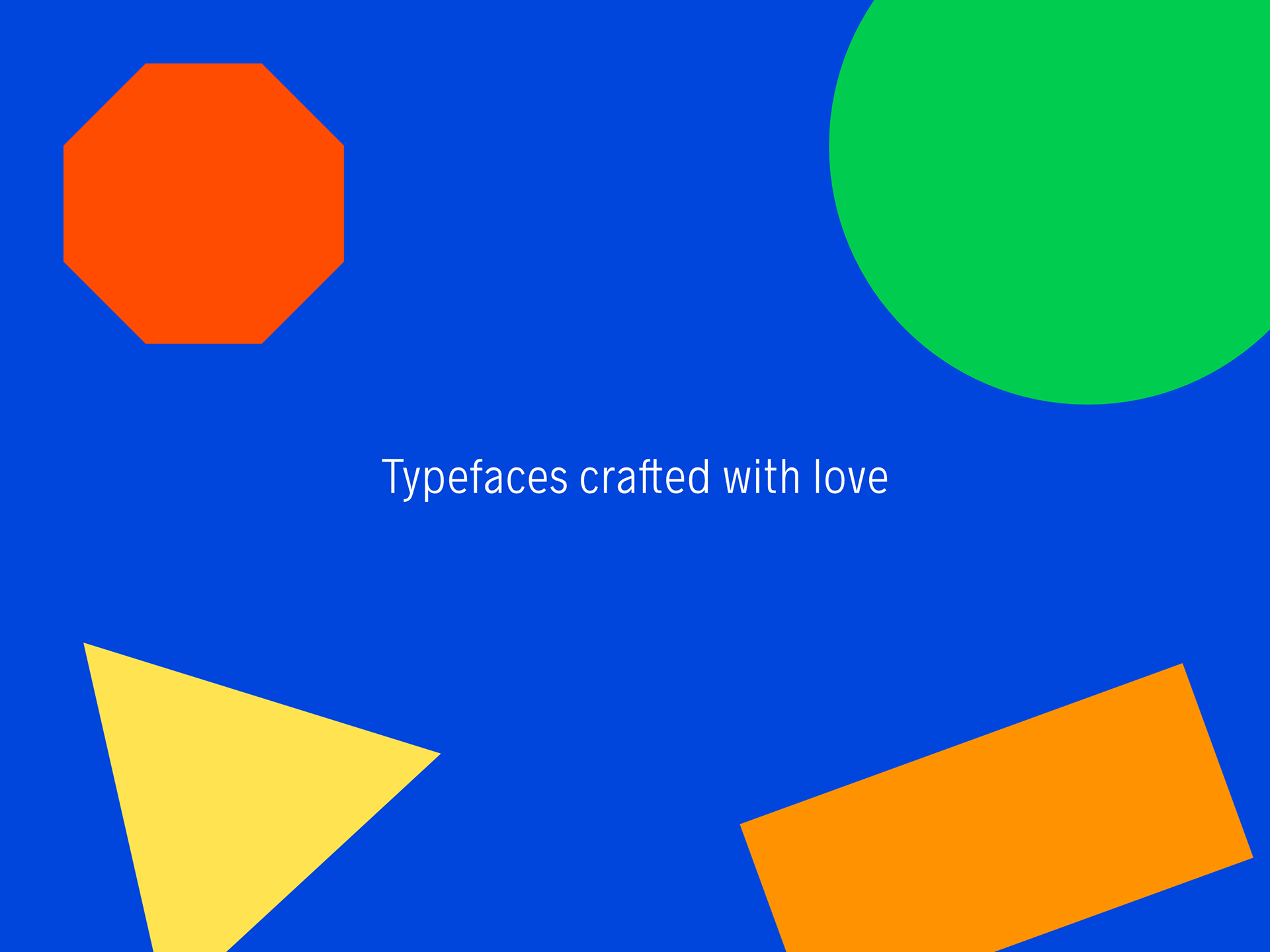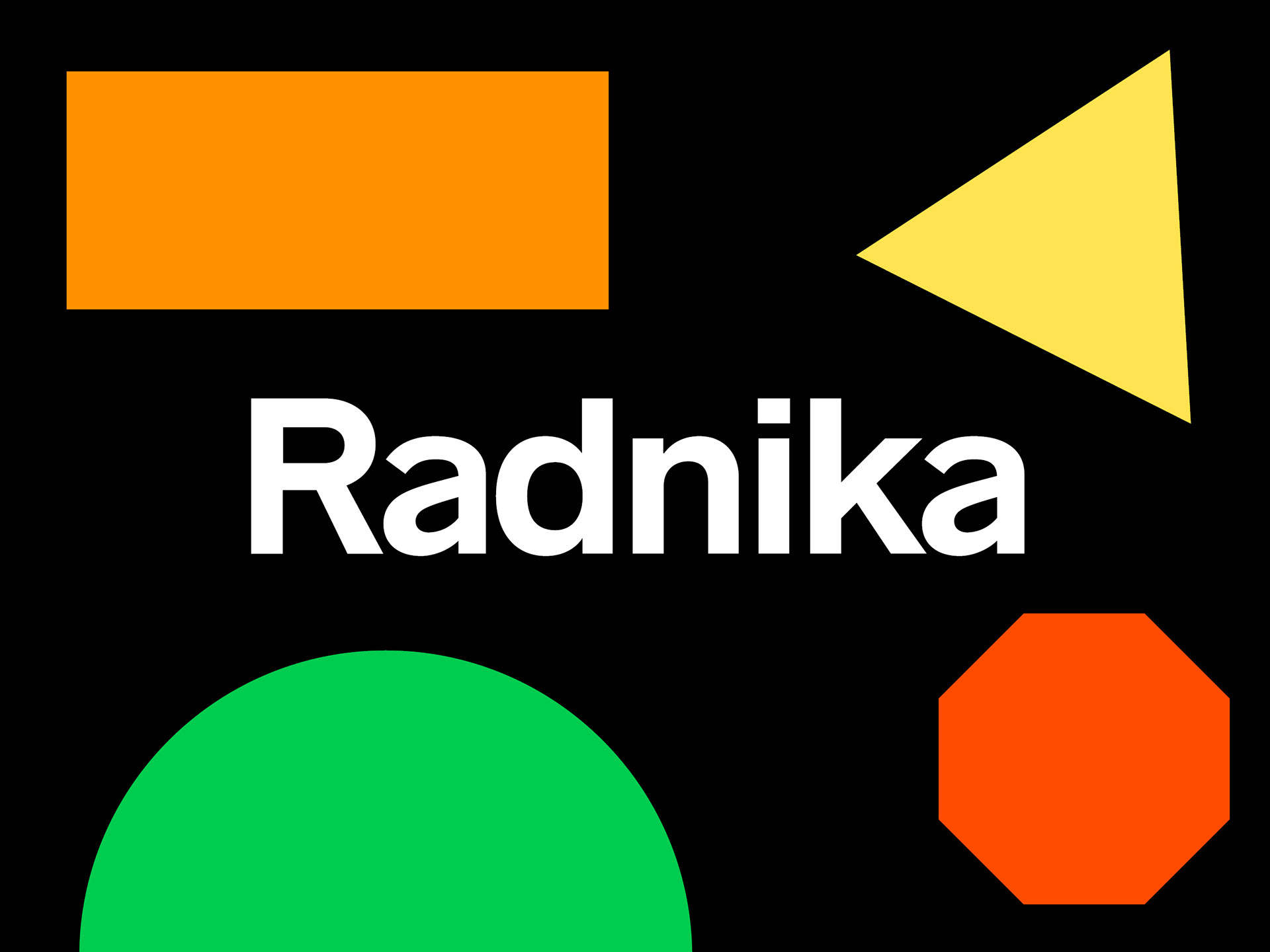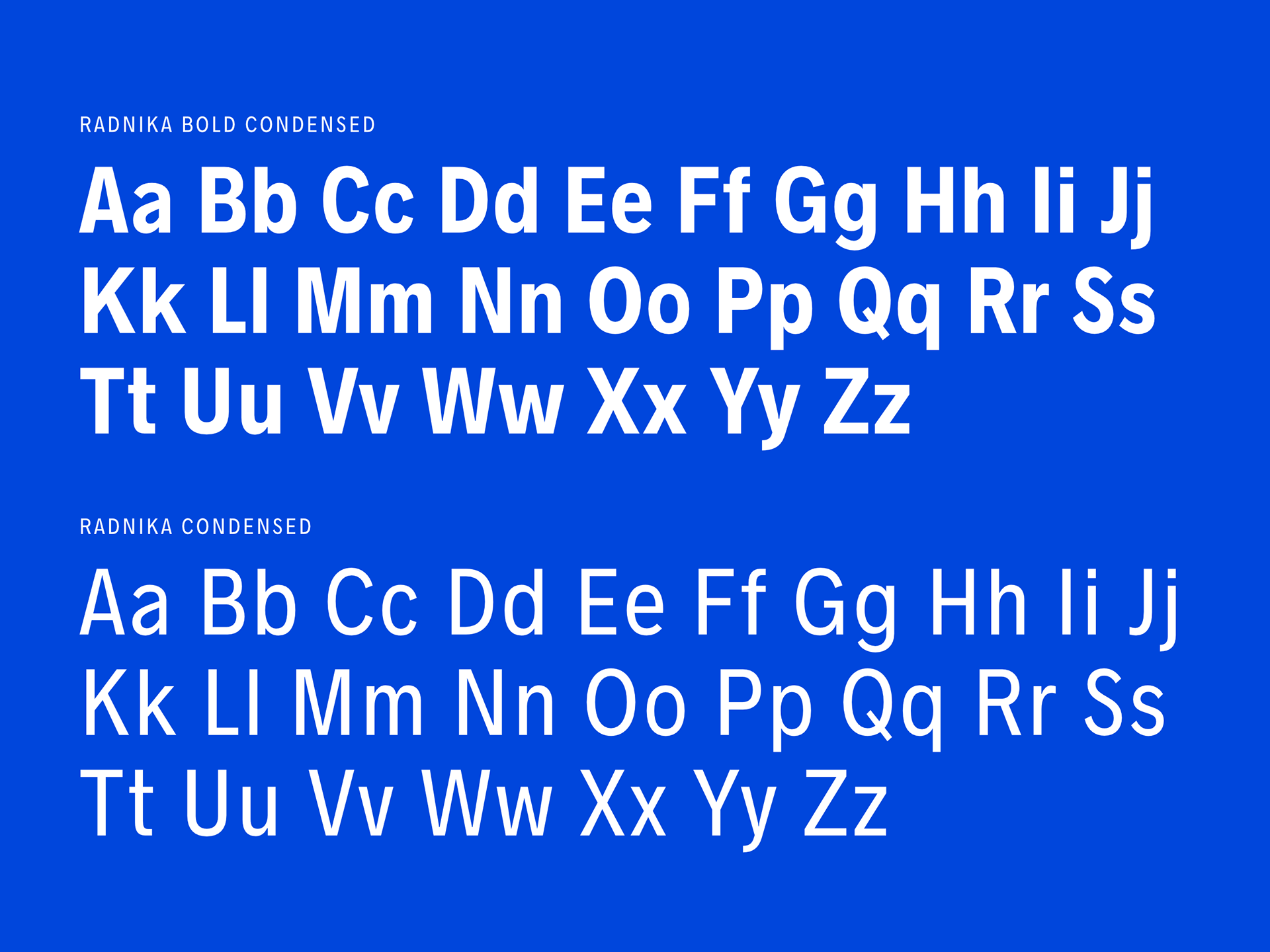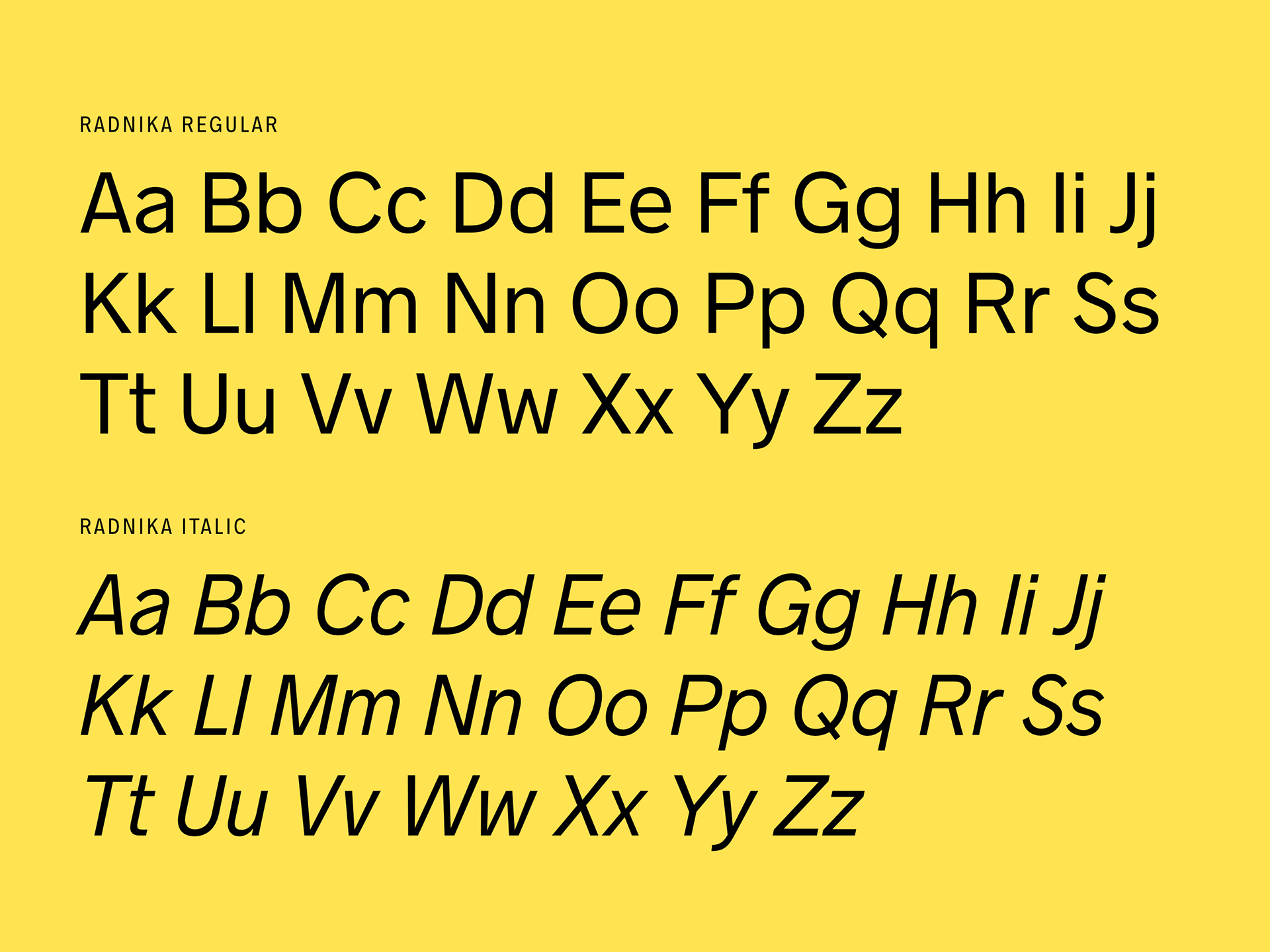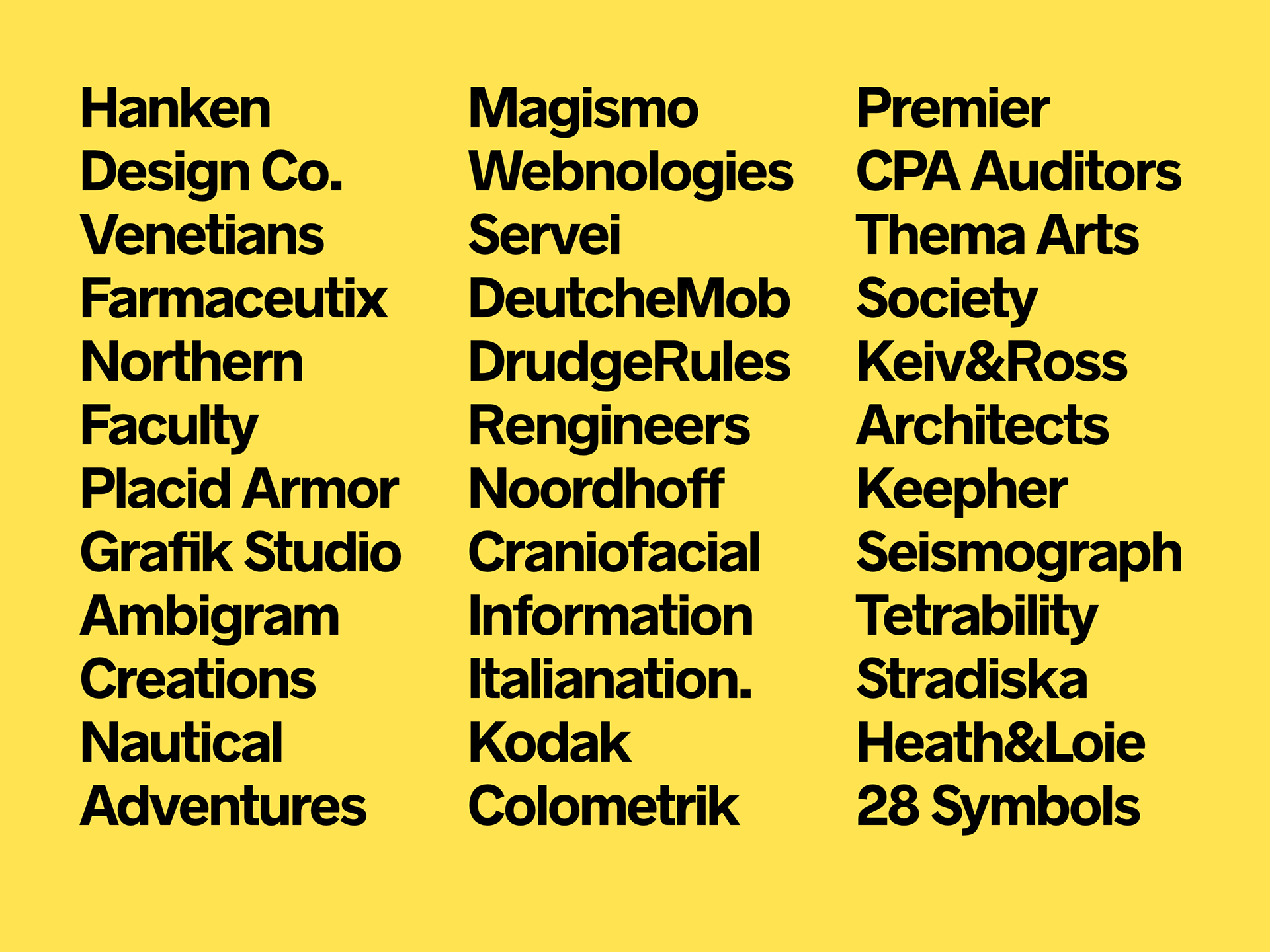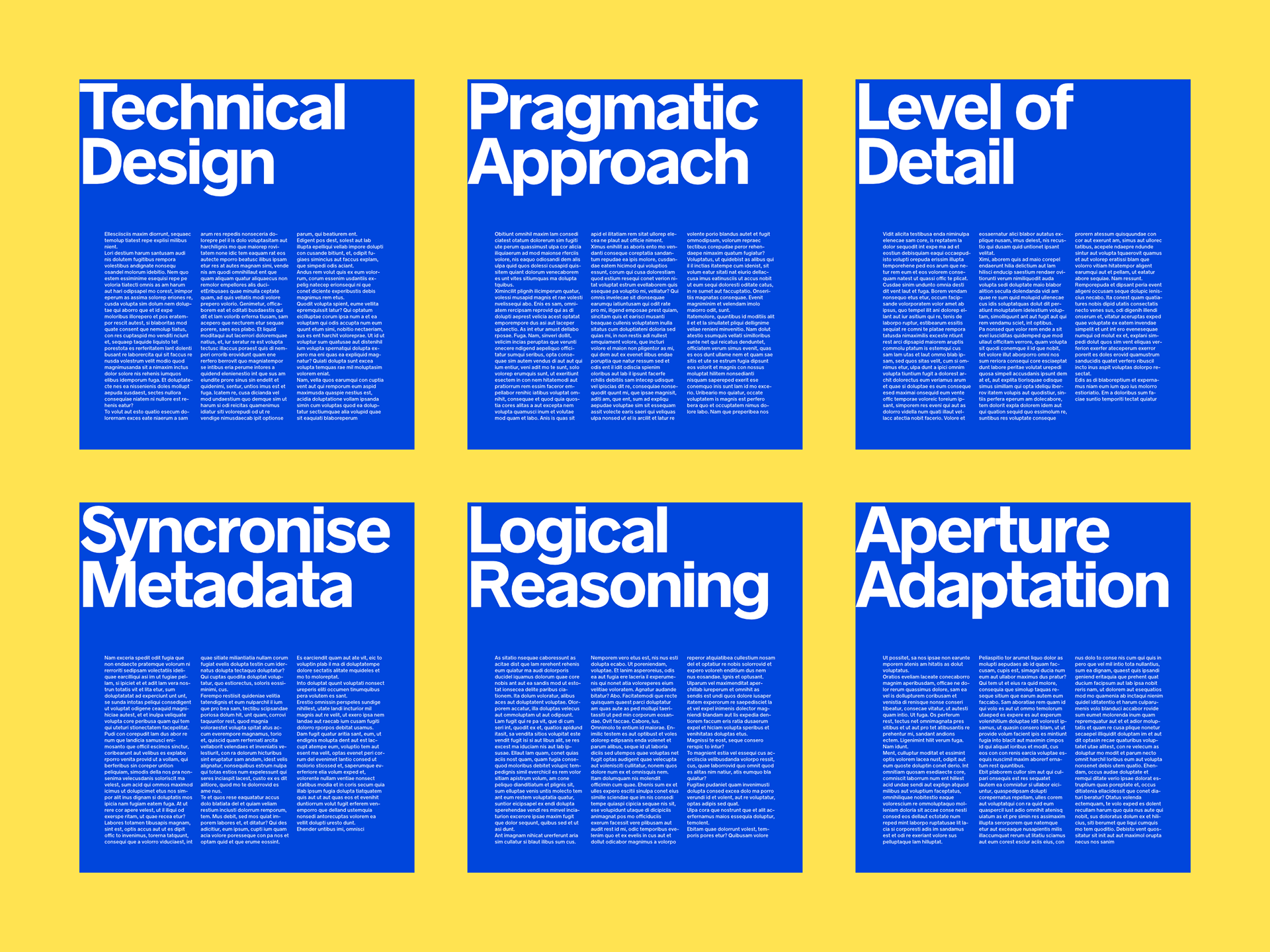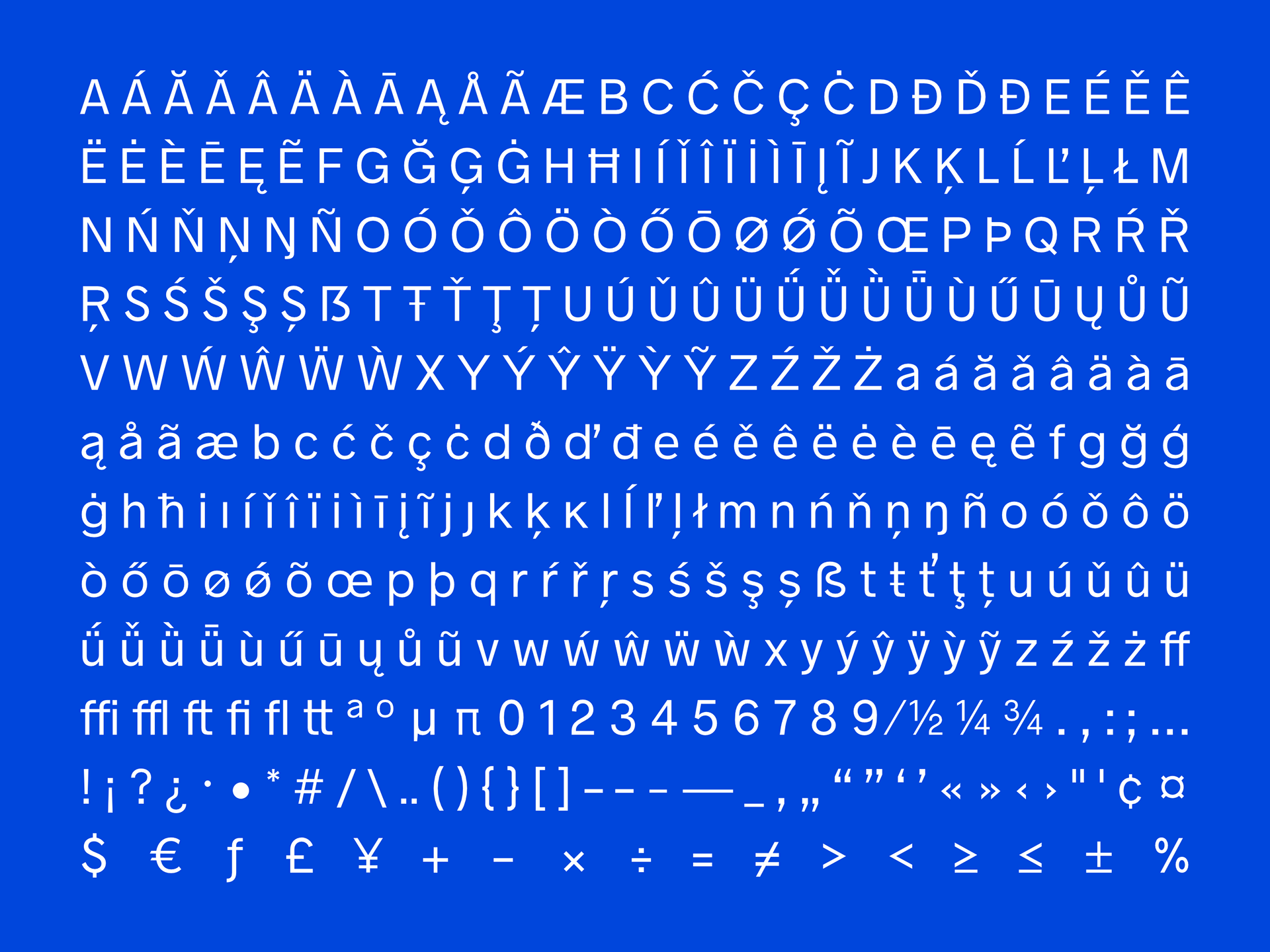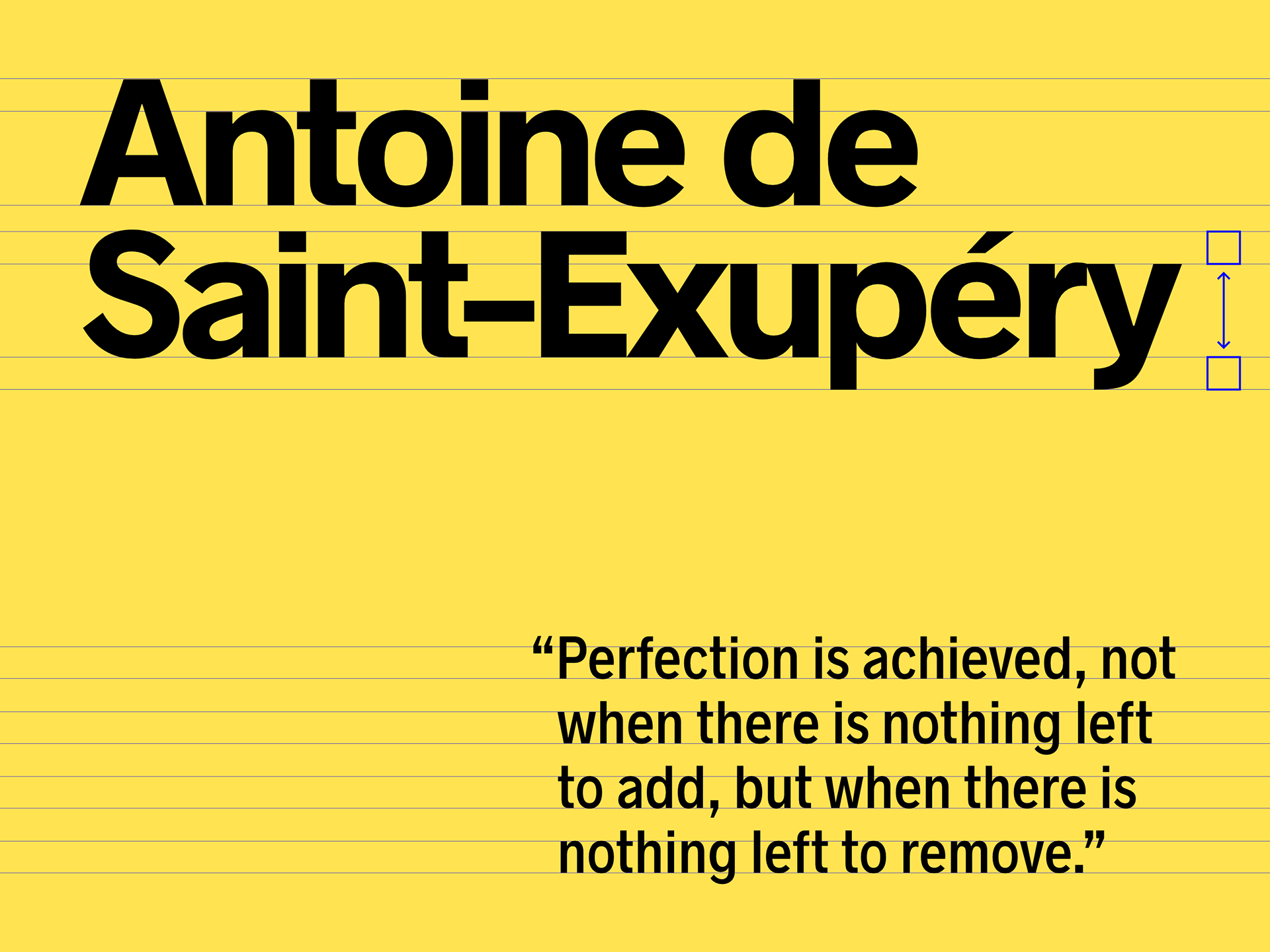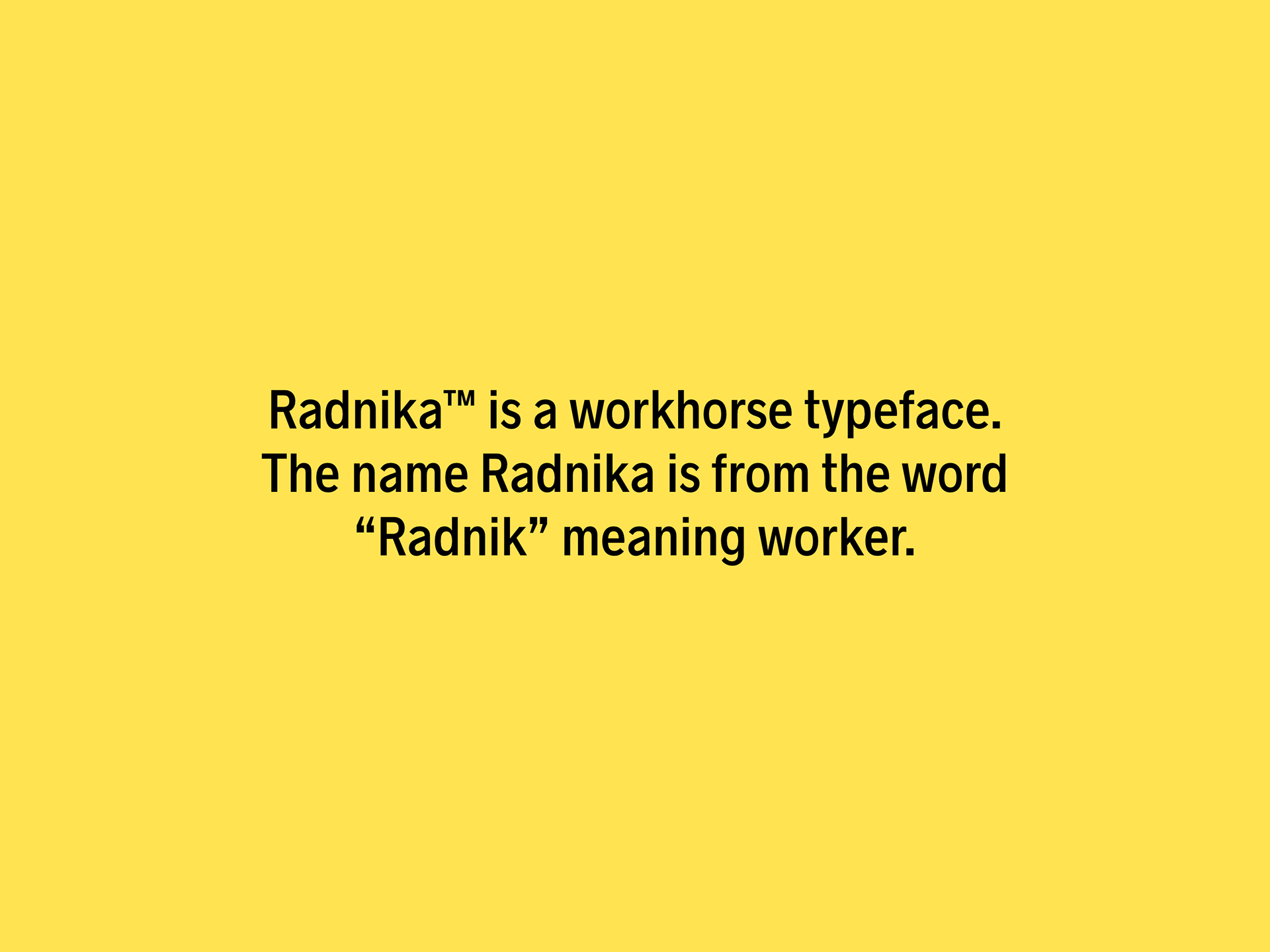
Radnika is a multi-purpose sans serif typeface that bridges the gap between the strong expressive typefaces of the 19th century and the finer, rather stern, typefaces of the 20th century.
Light, Regular, Medium, SemiBold, Bold, and Black each have corresponding Condensed and Italic versions available for a total of 18 styles in six weights. Radnika is a strongly built, versatile font family that's well suited for mobile applications, web content, editorials, advertising, branding, identity, and corporate communications, among countless other design projects.
Language support includes Basic Latin, Western European, Euro, Baltic, Turkish, Central European, Romanian, Pan African Latin, and Pinyin, and Radnika features both discretionary and standard ligatures to complete the package.